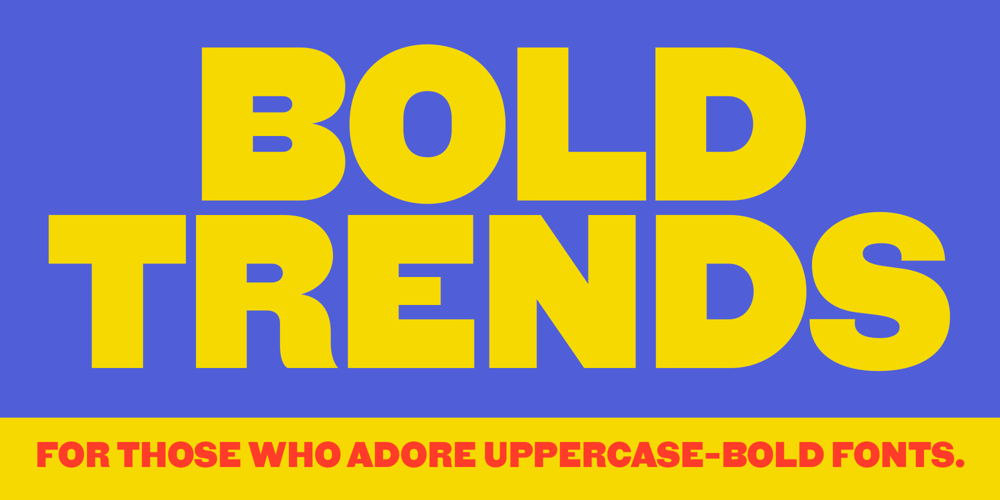
Ocelot
Ocelot font
Ocelot Font Family was designed by Felipe Calderón and published by Estudio Calderon. Ocelot contains 12 styles and family package options. Ocelot is a typeface based on GOTHIC —originally designed by George Nesbitt. As an extension of its lineage, Ocelot keeps GOTHIC’s easy-going curves and idiosyncrasies, while updating it for modern use.⁠